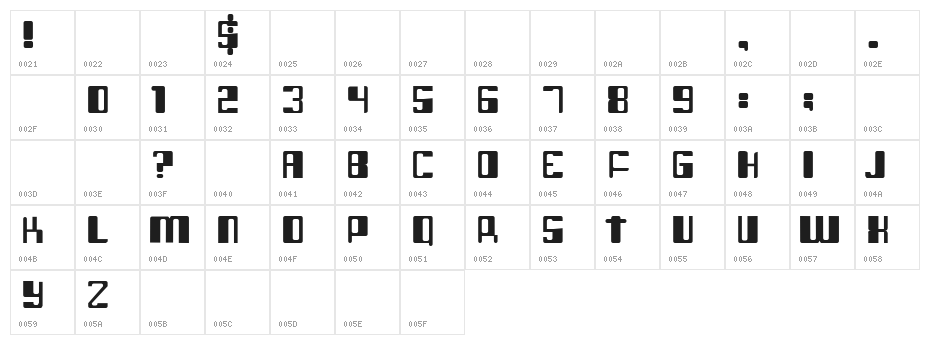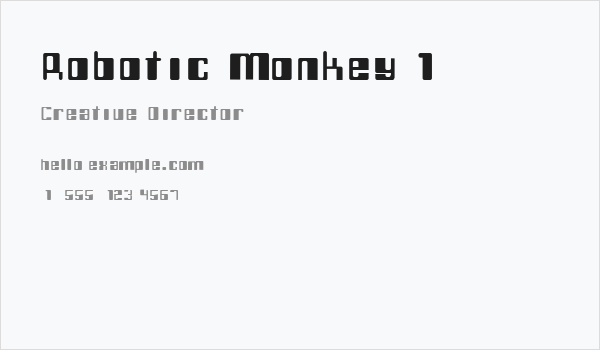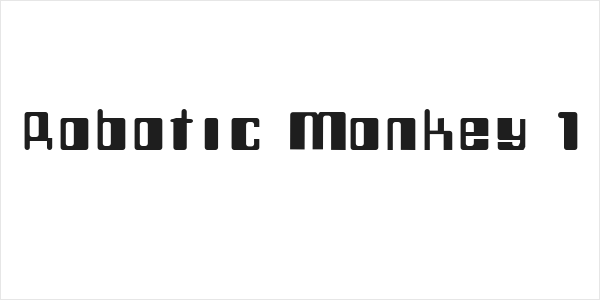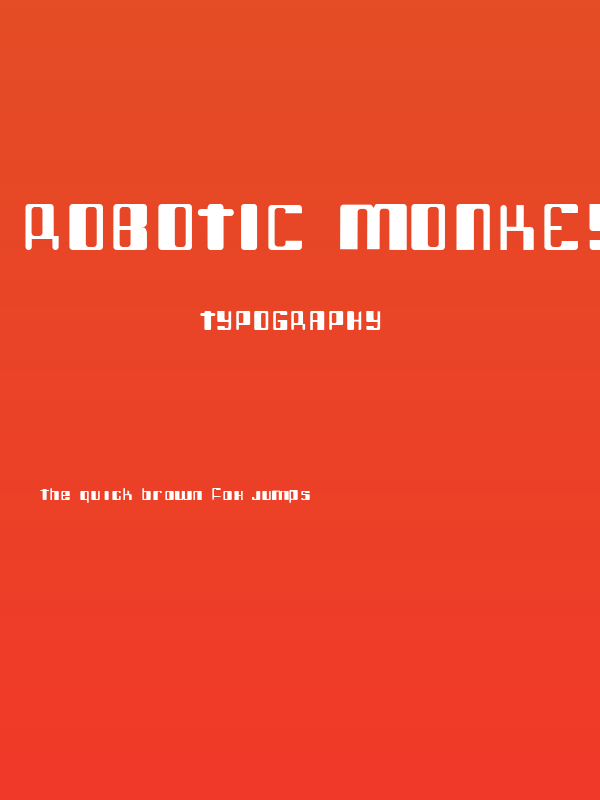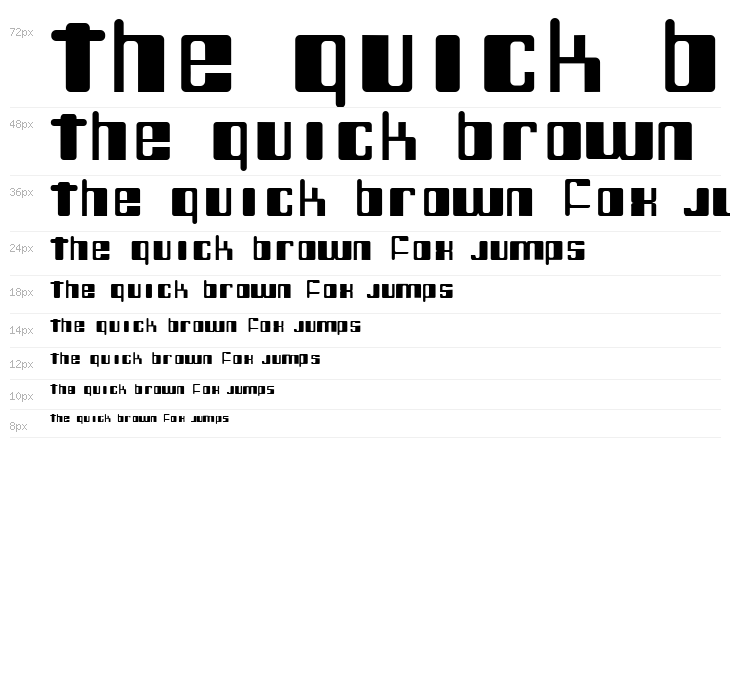
Robotic Monkey 1 Font
Robotic Monkey 1 Description
This font features a bold and futuristic design, characterized by its geometric shapes and strong presence. The letters are constructed with a combination of straight lines and rounded edges, giving it a unique and modern appearance. The uppercase and lowercase letters maintain a consistent style, with the lowercase being slightly more compact. Numbers and special characters follow the same design principles, ensuring uniformity across all glyphs. The font's distinct style makes it suitable for projects that require a contemporary and tech-inspired look.
Proposed ProjectsIdeal for technology branding, sci-fi themed designs, video game titles, and modern advertising.